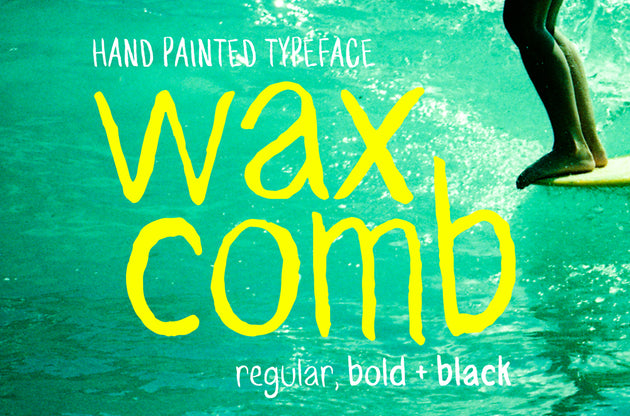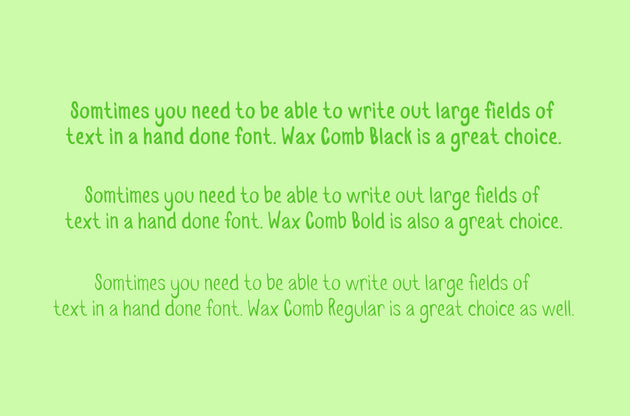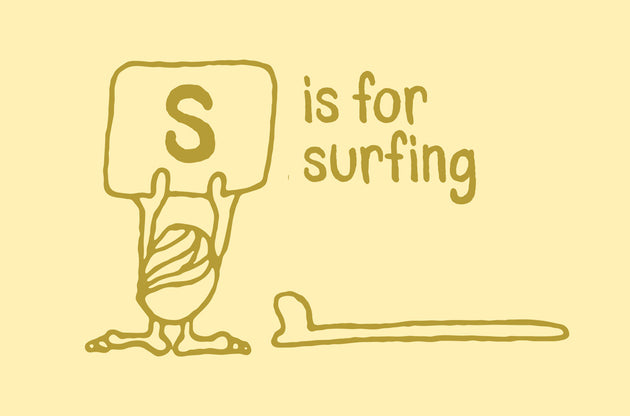
Wax Comb Font
This font looks hand drawn because... it was hand drawn.
Wax Comb is hand written typeface available in 3 weights - Regular, Bold and Black. This OTF font was written with a brush, and the distinct strokes can add a hand written feel to any design.
Wax Comb features all the characters that you will need for most common uses.
An OTF font Wax Comb is infinitely scalable. Wax Comb still possesses the nuance of a hand lettered font, while working just like any other font in your font library.